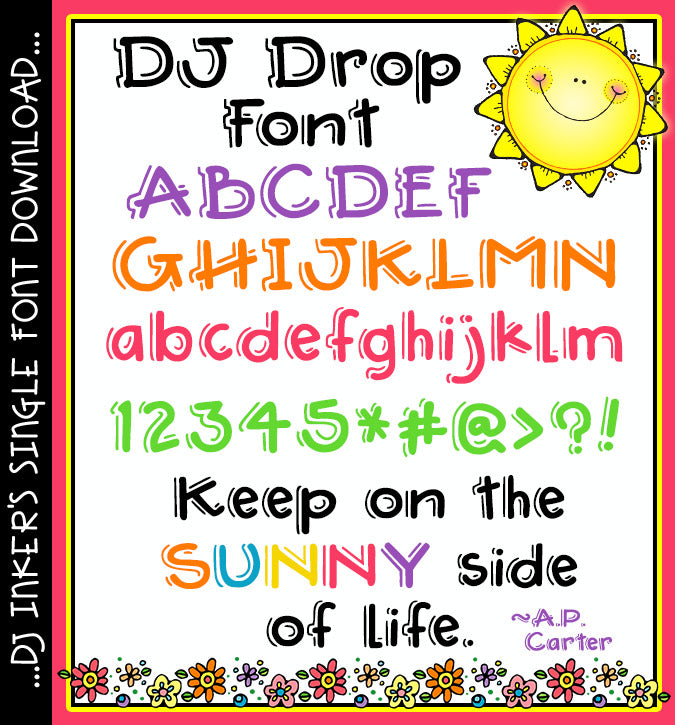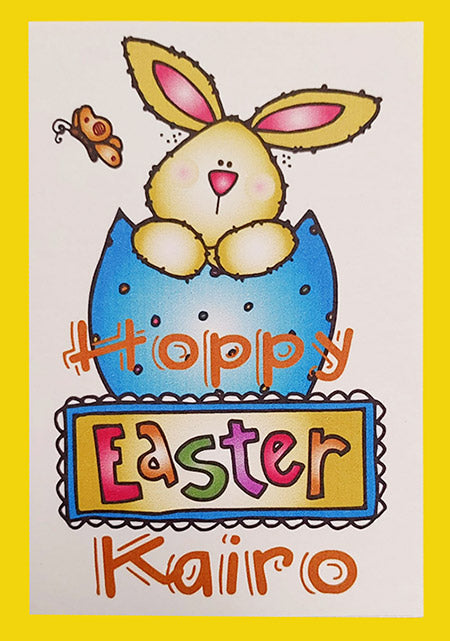
A cute, bold drop shadow font by DJ Inkers
DJ Drop Font Download
A cute, bold drop shadow font by DJ Inkers
DJ Drop Font Download
Drop in to DJ Inkers and you're sure to find a great font for your project.  This bold & whimsical lettering has a little drop shadow effect... perfect for making your headlines pop!  Great for posters, parties, sports and summer fun.